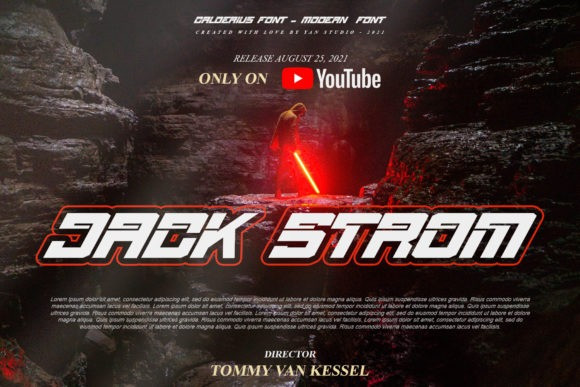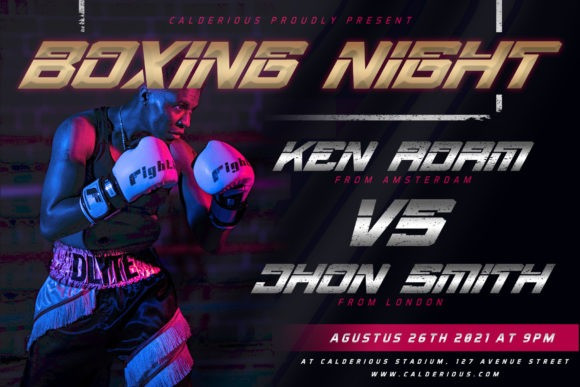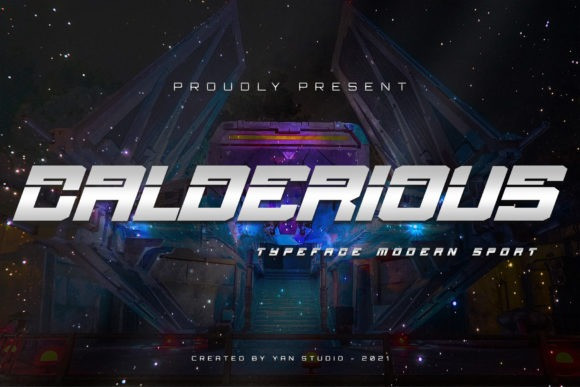
Calderious Font
Calderious Display Font is a bold and robotic display font. This font is ideal for writing web designs, business cards, or pretty much anything else that requires a techno and sporty touch.